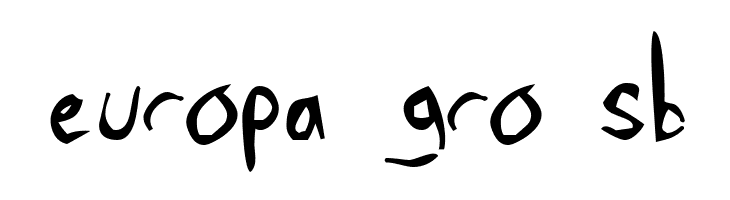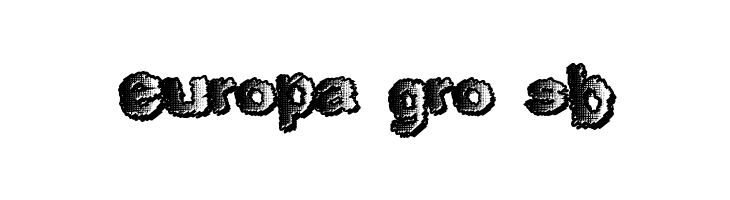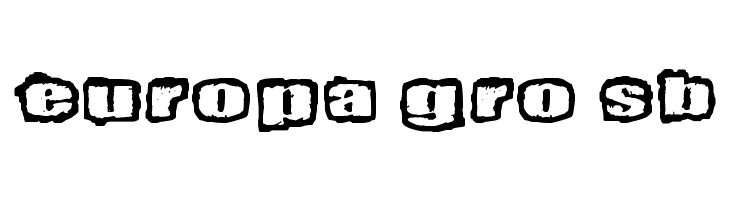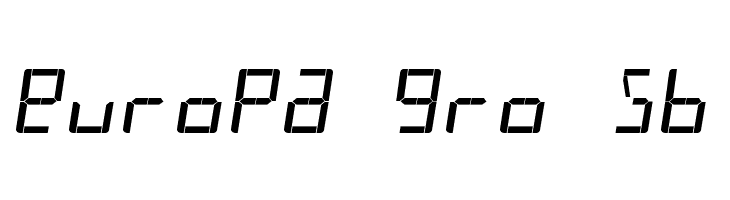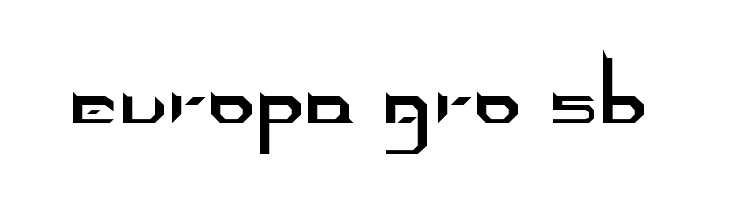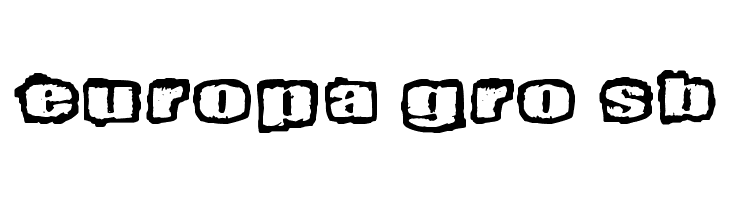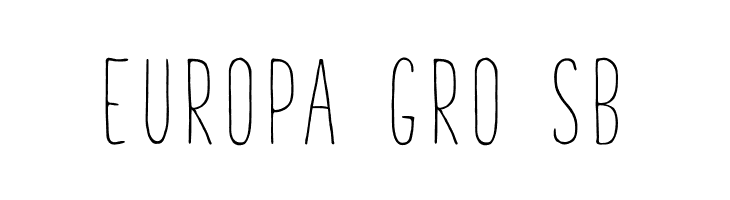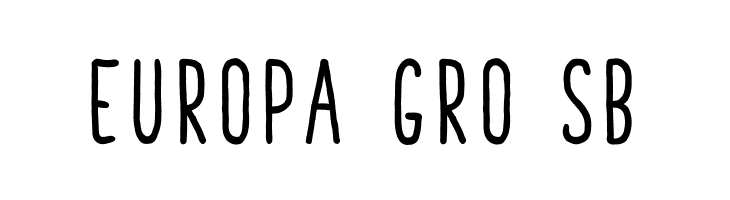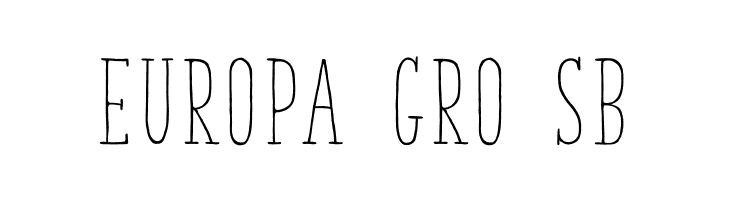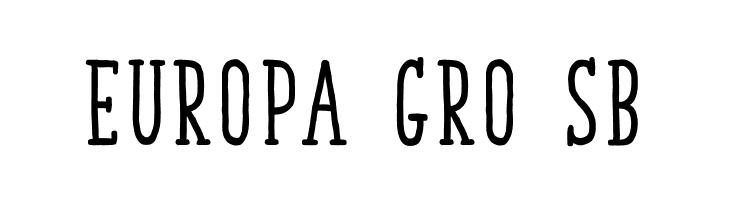
• Talking to you
• TALL & SLIM
A tall, slim font with elongated vertical strokes and narrow letterforms.
• TALL & SLIM
A tall, slim, and modern font with consistent thin strokes.
• Tampy's Font
( Fonts by Thomas O`Callaghan - www.tomocallaghan.co.uk )
A whimsical, hand-drawn font with irregular, artistic strokes.
• Tan Patty
A bold, playful font with thick strokes and a decorative style.
• Tanda Tangan
A fluid, handwritten script font with a modern, signature-like style.
• Tangerine
( Fonts by Matthew Austin Petty - www.disturbed.com )
A bold serif font with a classic yet modern aesthetic.
• Tangled
• tape deck
( Fonts by Mike Wolf )
A bold, 3D retro-futuristic font with geometric and angular design.
• Tape Loop
• Tape The Font
( M.H. Rinaldi )
An angular, tape-like font with bold, geometric characters.
• Taper
• tapestry
( Fonts by Mike Wolf )
A bold, geometric font with a zigzag pattern and consistent thickness.
• tartarsauce_erc
A bold, cartoonish font with irregular, playful shapes and a hand-drawn feel.
• TASAGONI BOLD
( Fonts by Nirma Indah )
A bold, angular font with sharp, jagged edges and a geometric style.
• TASAGONI REGULER
( Fonts by Nirma Indah )
A geometric, angular font with a futuristic and bold design.
• TasteBomb
A bold, textured font with a distressed, grunge-like style.
• TastyBirds